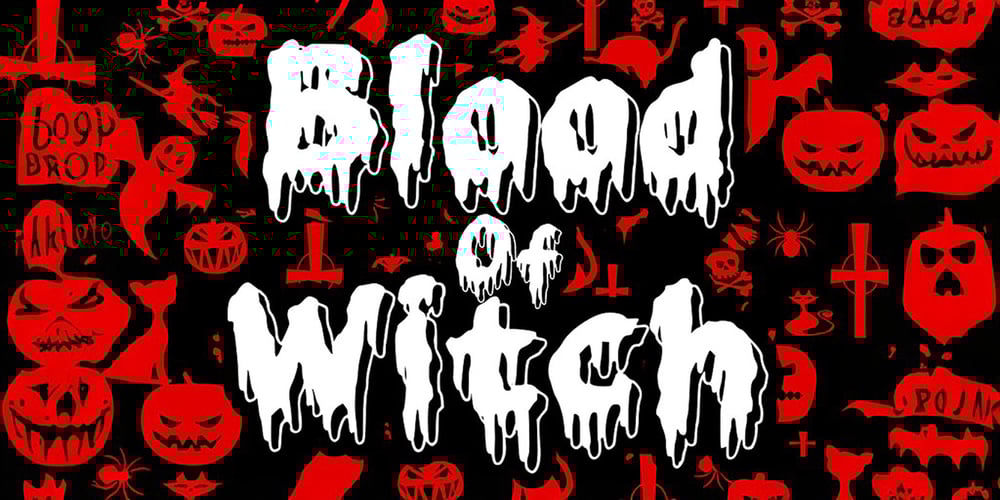
Blood Of Witch Font Family was designed by Gabriel Valentinus and published by Mvmet. Blood Of Witch contains 1 styles and family package options. Blood of Witch is a very cool and unique blood-dripping display font. You can use it for your horror and Halloween themed needs! You can use it for anything ranging from t-shirts and clothing, for your scary book designs, Halloween party needs, greeting cards, stickers, posters, banners, or anything that needs a horror touch. Try it to create fabulous designs and feel the horror and Halloween vibes with it!